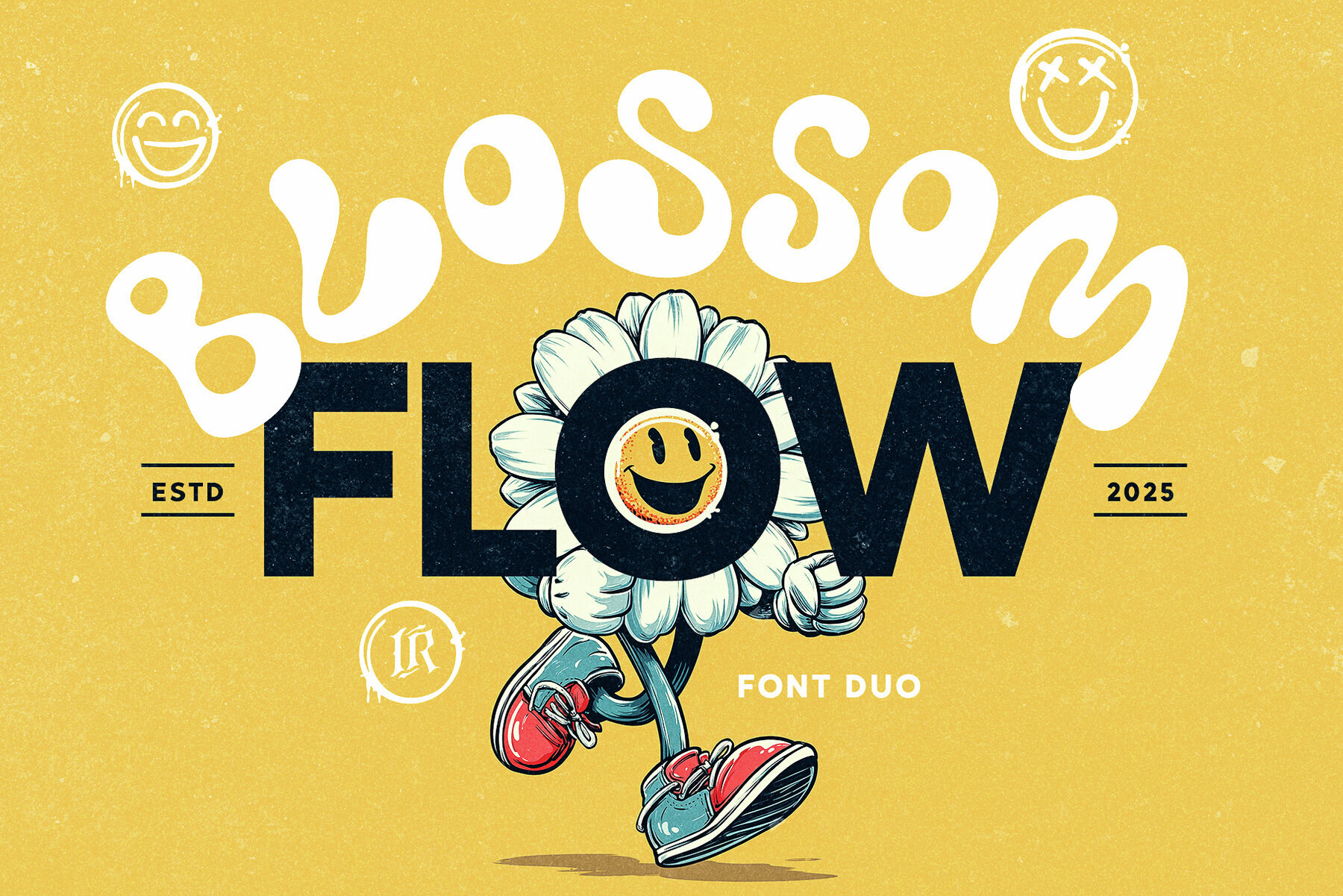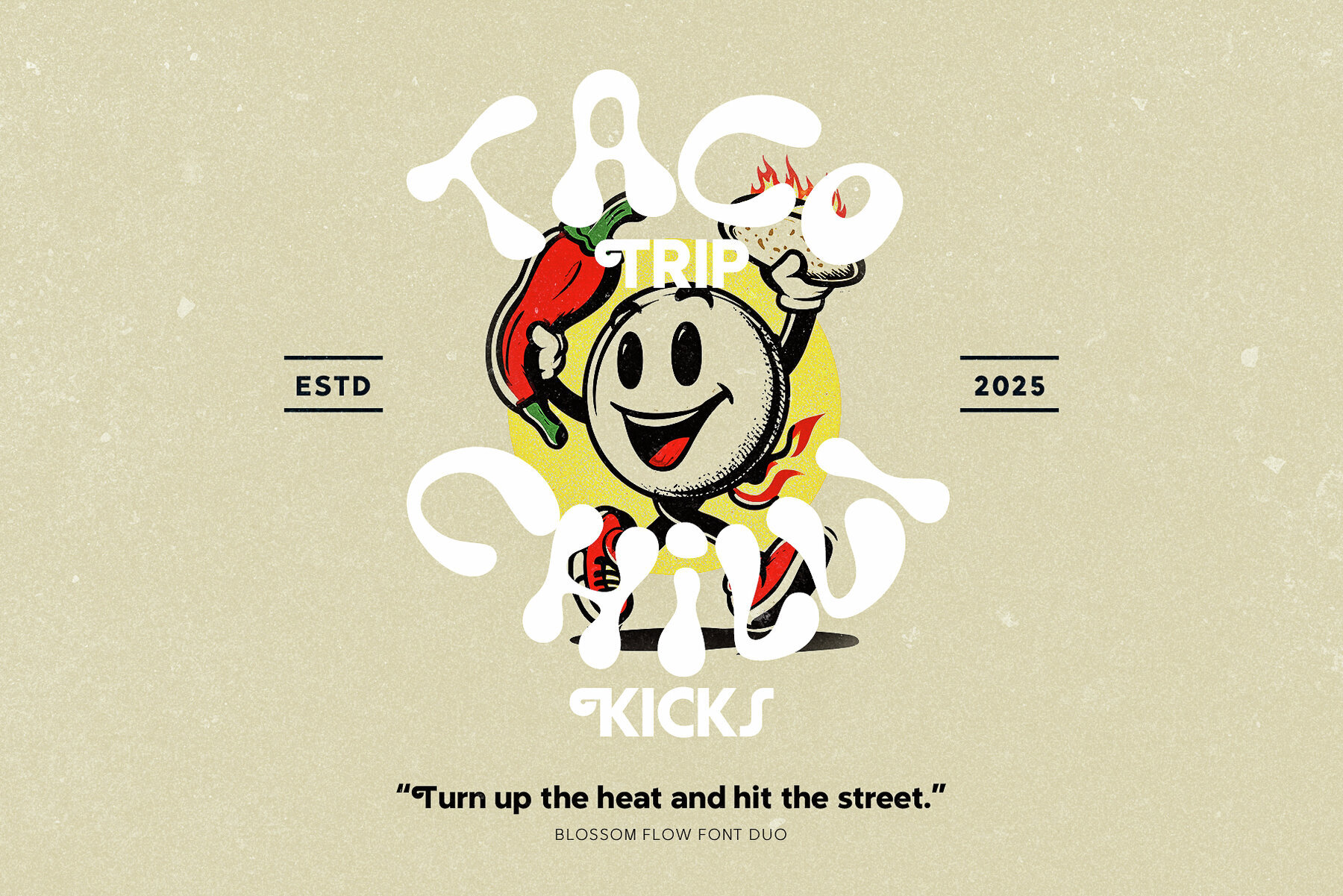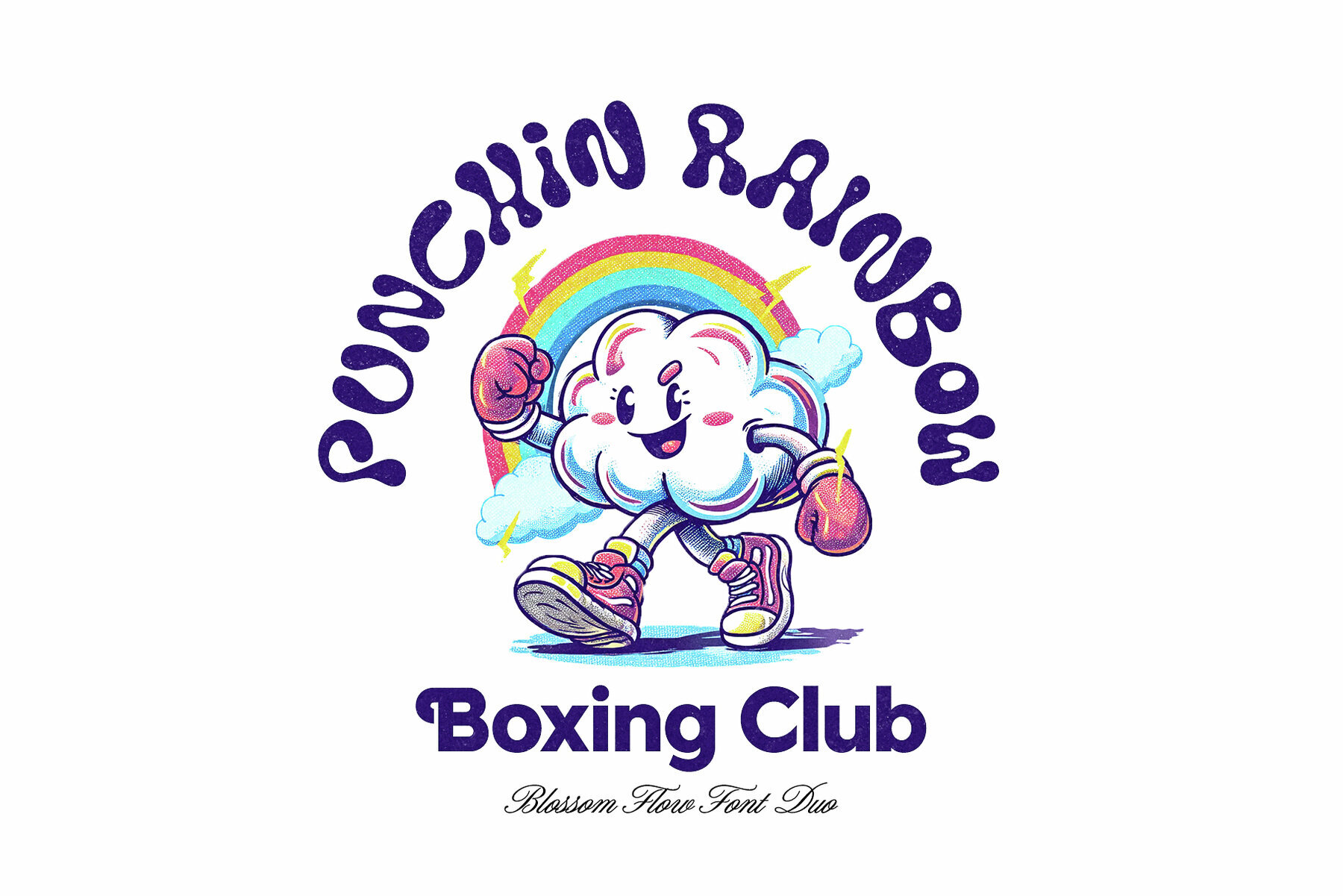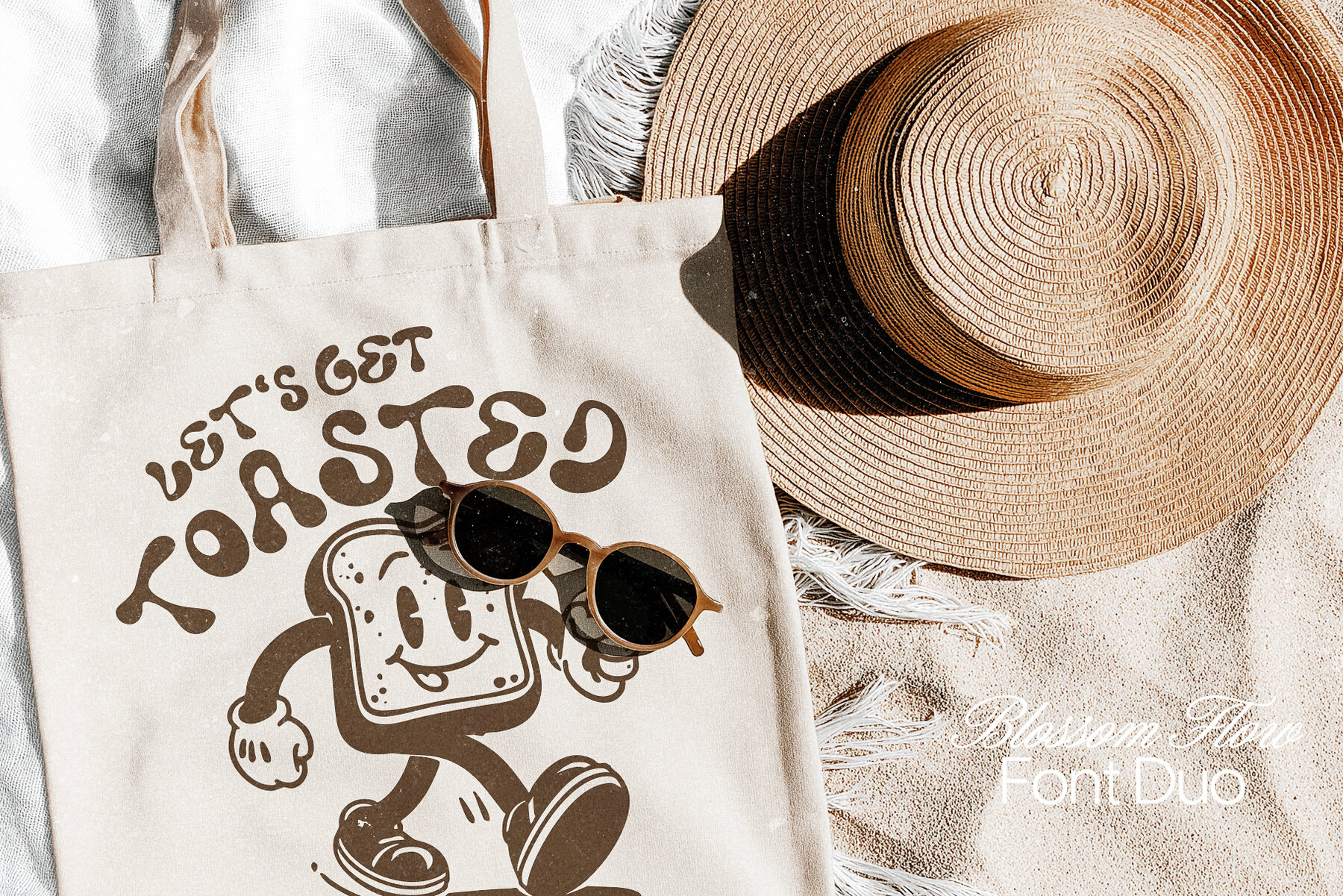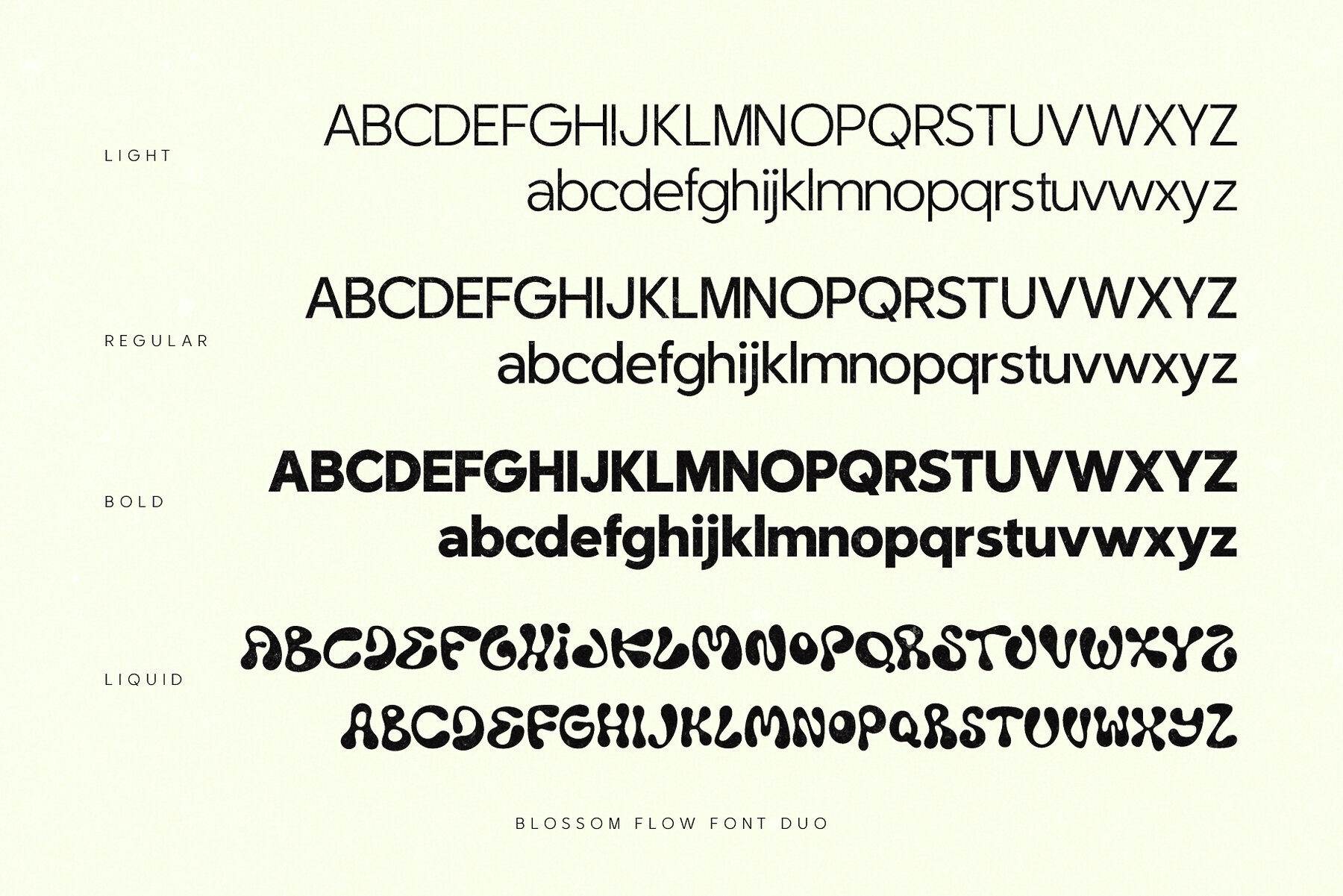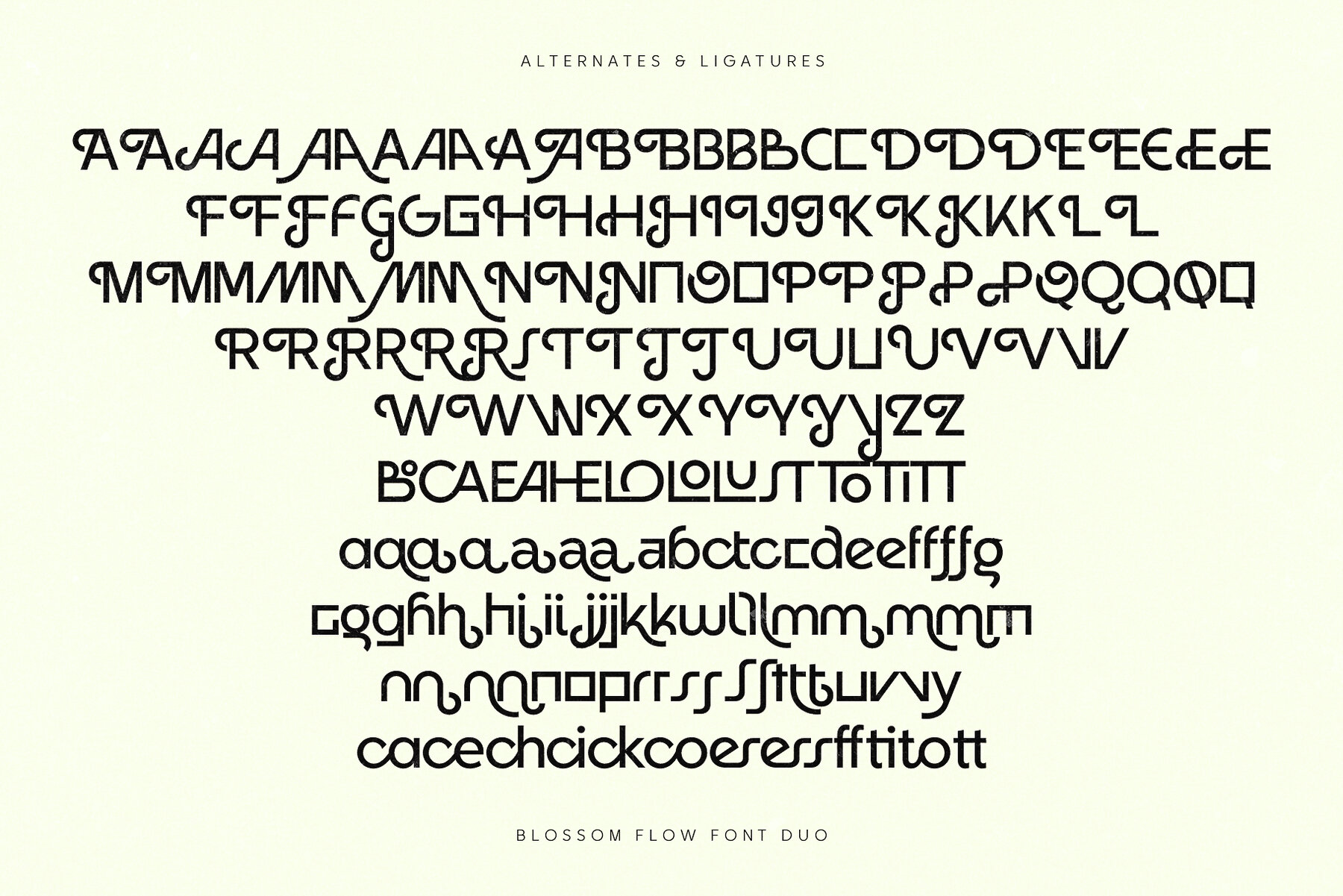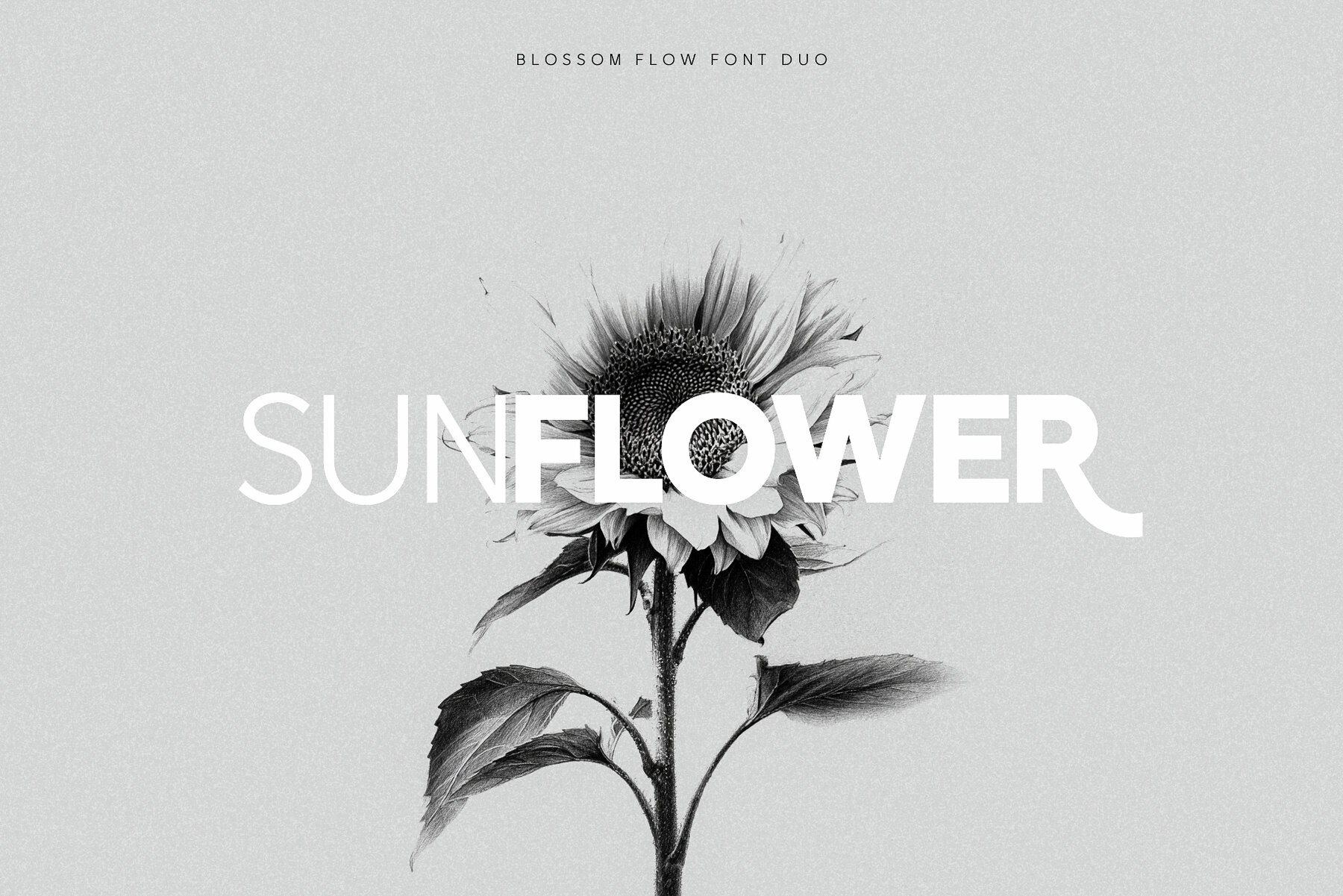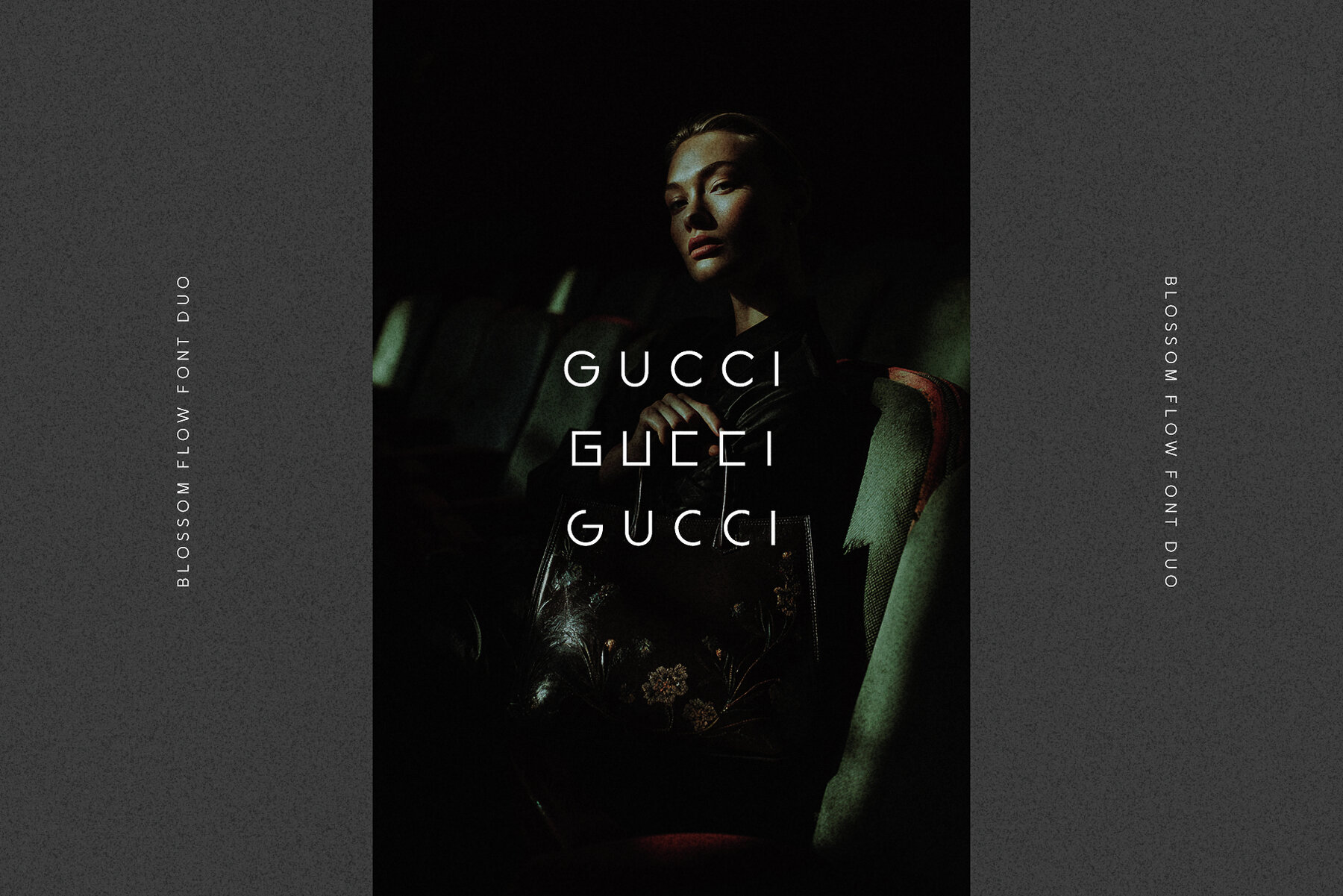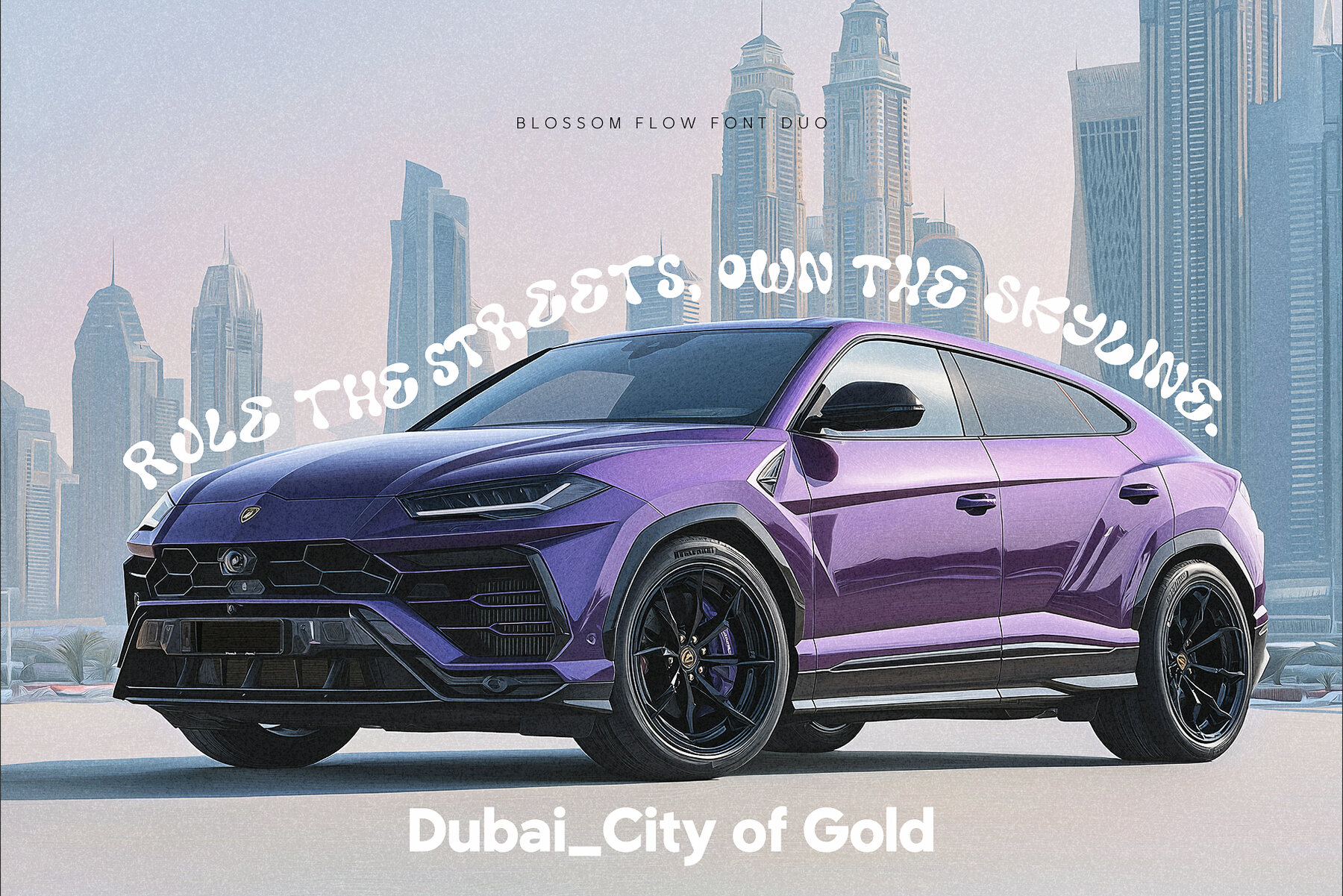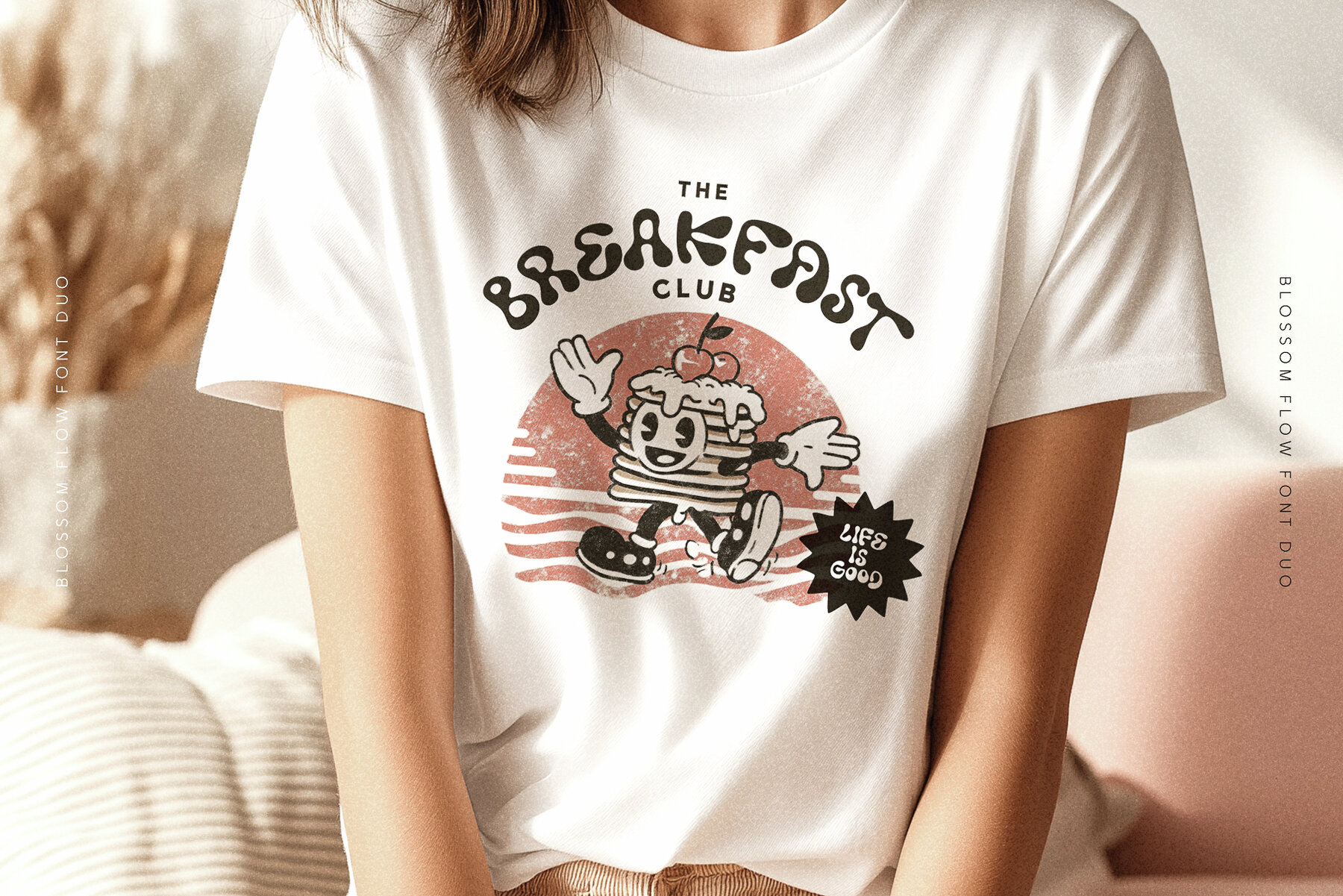
Blossom Flow Font
Blossom Flow Light
Blossom Flow Regular
Blossom Flow Bold
Blossom Flow LiquidOutline
Blossom Flow LiquidSolid
The Blossom Flow Font Duo offers a spirited combination of clean sans-serif and dynamic liquid lettering, bringing a bold, contemporary flair to any design. This versatile sans-serif font features an abundance of playful ligatures and stylistic alternates, making it an excellent choice for effortless and polished typography. Complementing this is the Liquid font, presented in both Solid and Outline styles, adding a touch of vibrant personality to your projects. Perfect for crafting logos, headlines, and social media content, these fonts are designed to harmonize seamlessly. Experiment with various styles, incorporate unique alternates, or let the ligatures naturally enhance the visual appeal. Elevate your creative work with a typography duo that exudes originality and charm.Blossom Flow Font Duo: A Vibrant Typography Pair